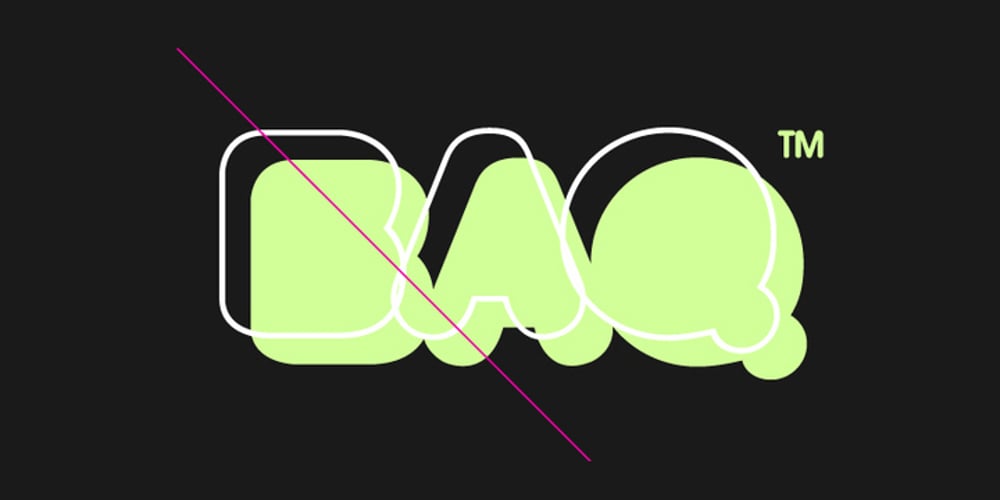
BAQ Rounded Font Family was designed by Alex Haigh and published by HyperFluro. BAQ Rounded contains 4 styles and family package options. BAQ Rounded sets itself up as a simplistic and blocky font, but it hides a deeper form. With indents in all the right places, this font creates a double image in our mind, of the form we see and the form we know, letters that bulge into blobs and letters that are easy to follow. This double image results in a casual, over the top yet easy to read font designed for relaxing and carefree messages.